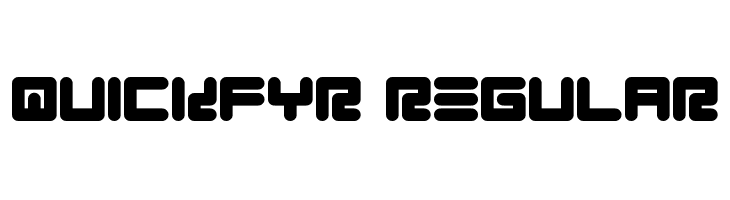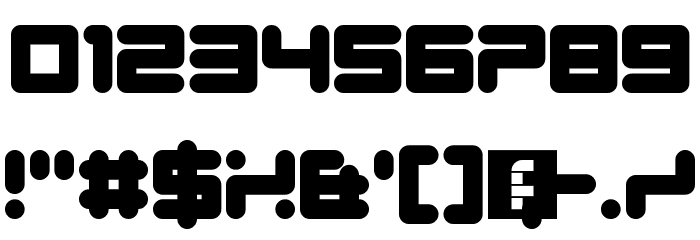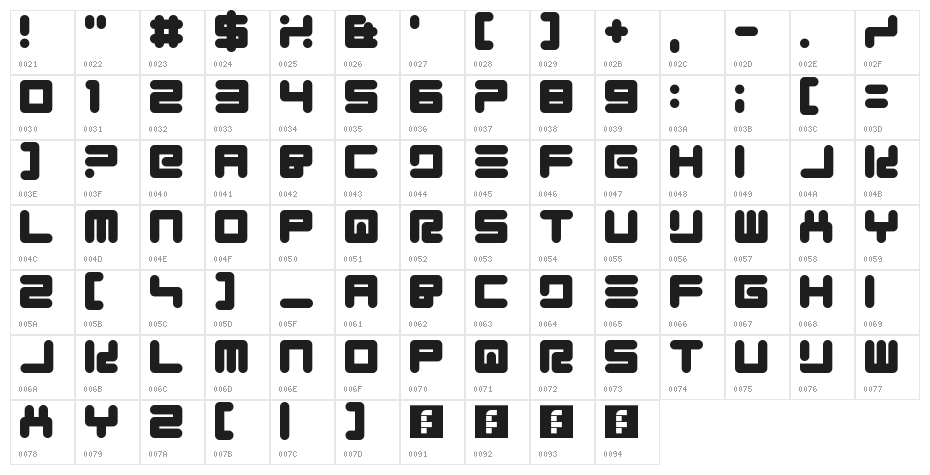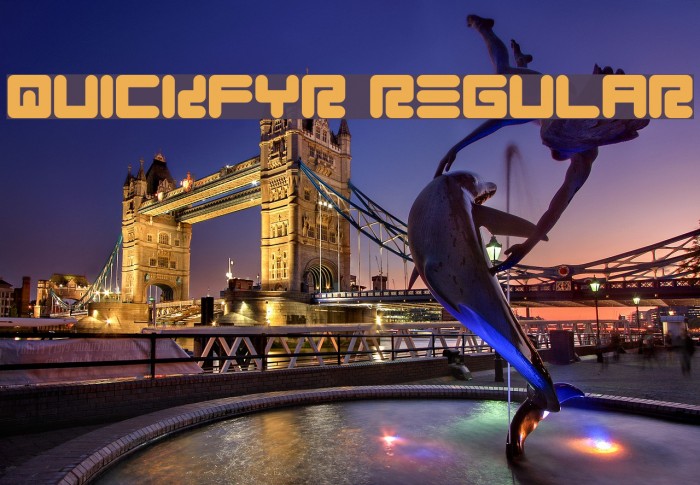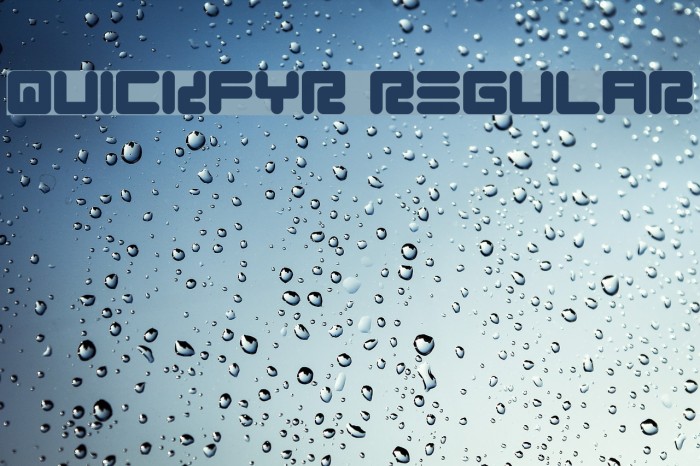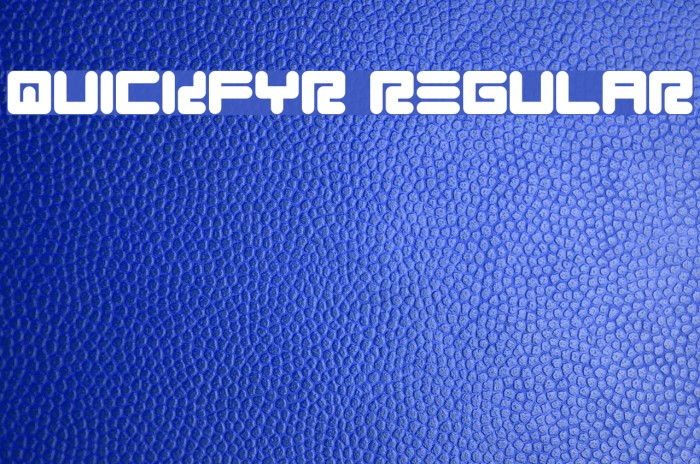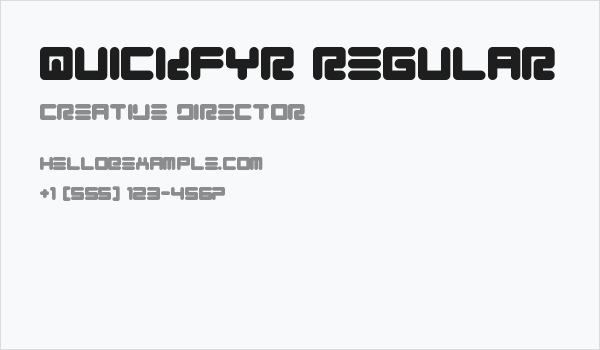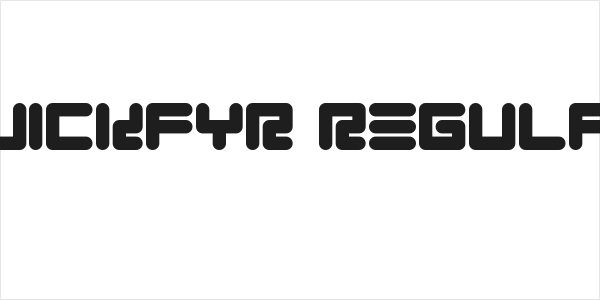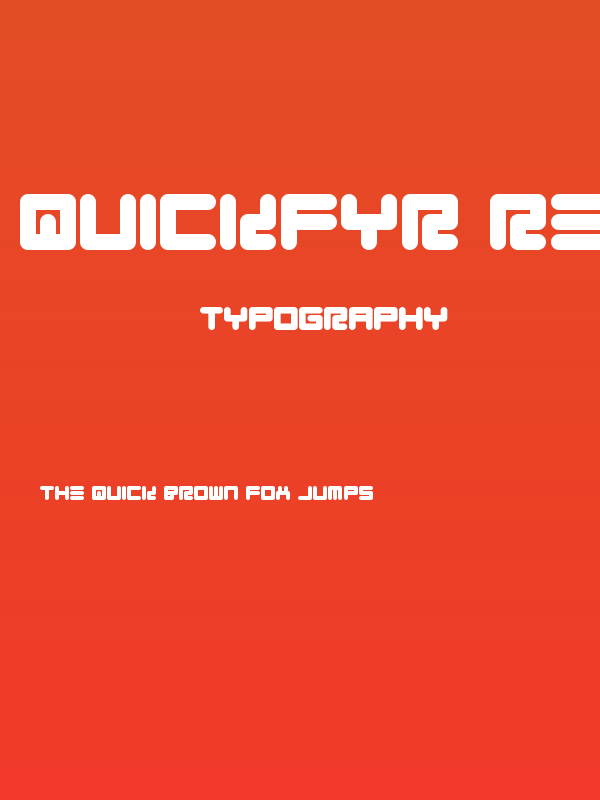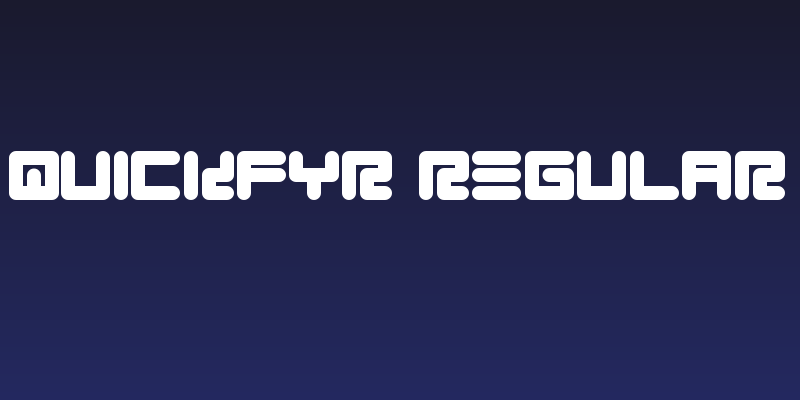
Quickfyr Regular Font
Quickfyr Regular Description
This font features a bold, futuristic design with rounded edges and a geometric structure. The characters are uniformly thick, creating a strong visual impact. The uppercase and lowercase letters share a similar height, contributing to a cohesive appearance. The numbers and special characters maintain the same boldness and rounded style, ensuring consistency across all glyphs. This font's unique style makes it stand out, with a modern and tech-inspired aesthetic that is both eye-catching and versatile.